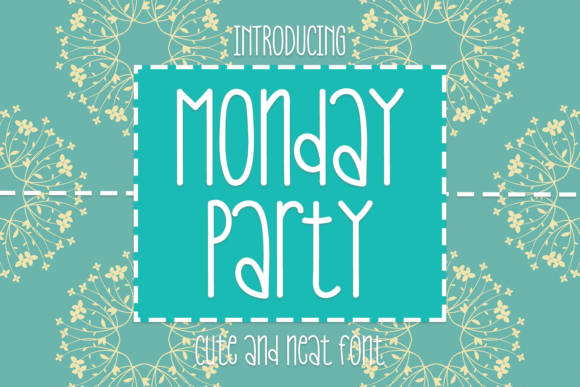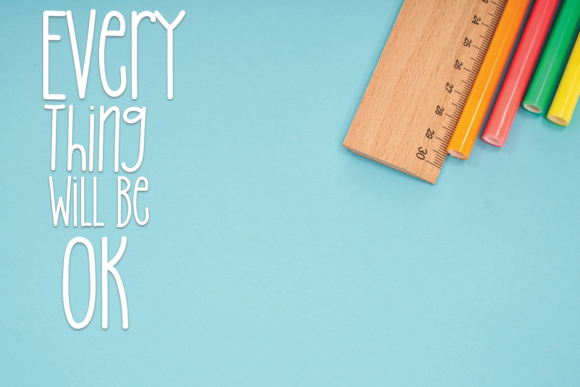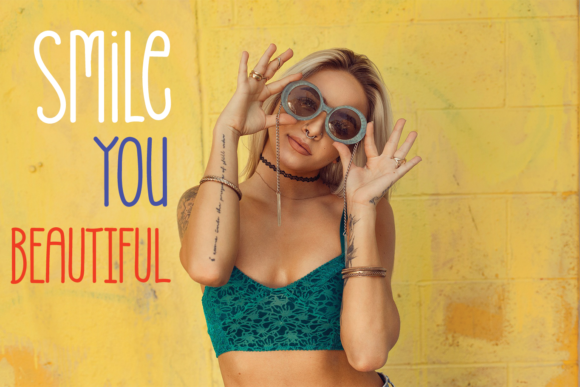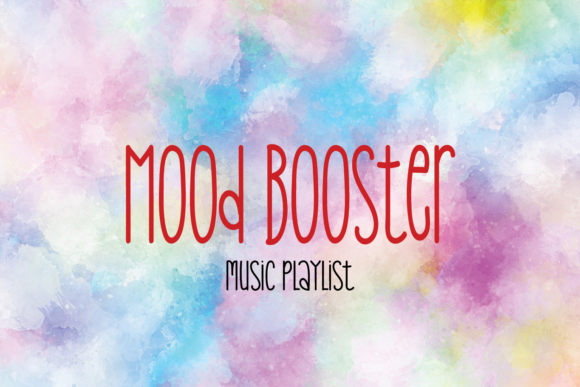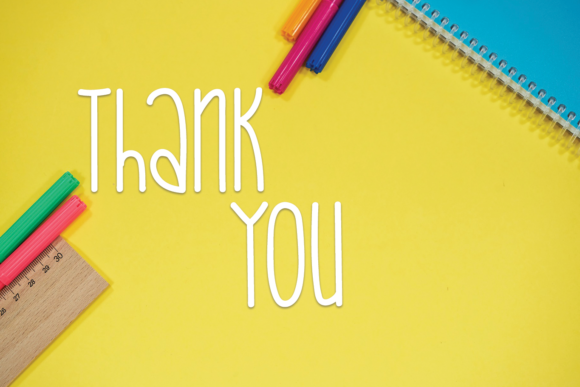
Monday Party Font
About Monday Party Font
Monday Party is a sweet, simple lettered and adaptable handwritten font. Its cute and full of life style makes this font a wonderful choice for brightening up your designs.